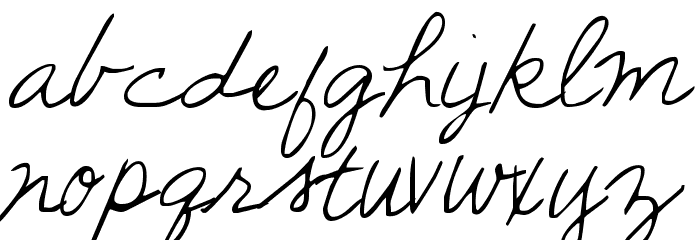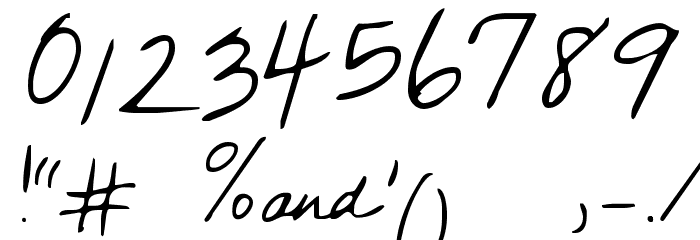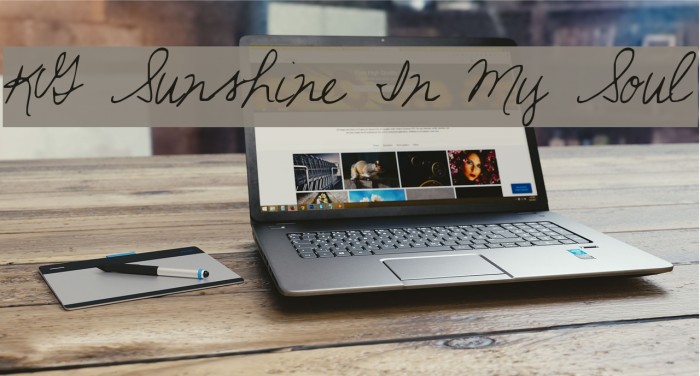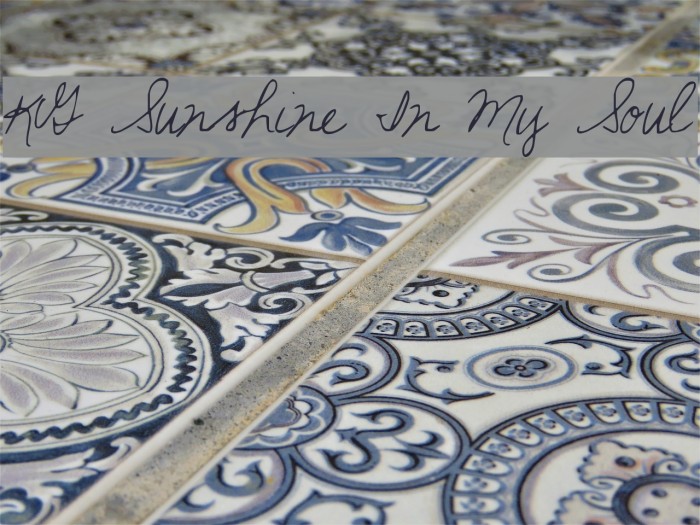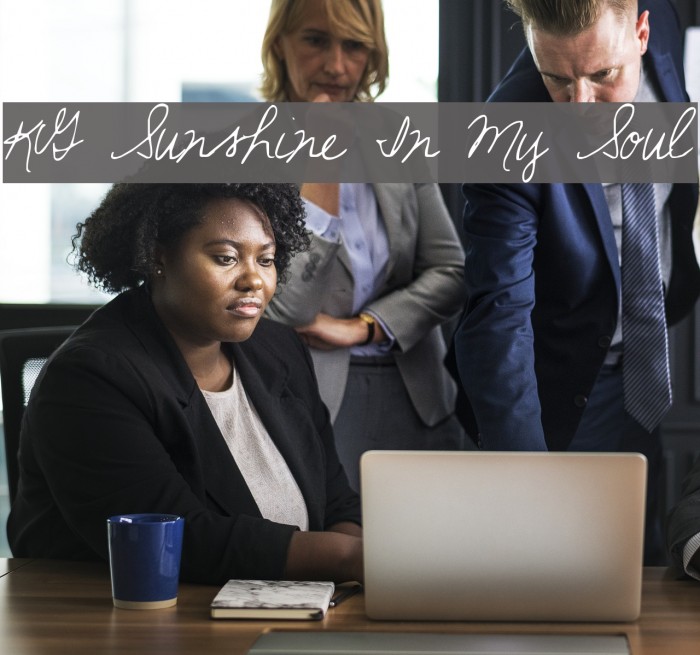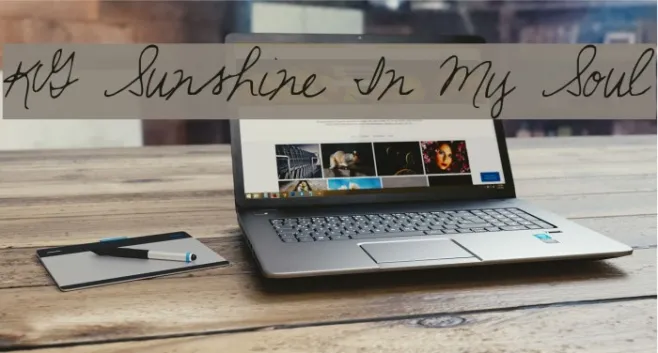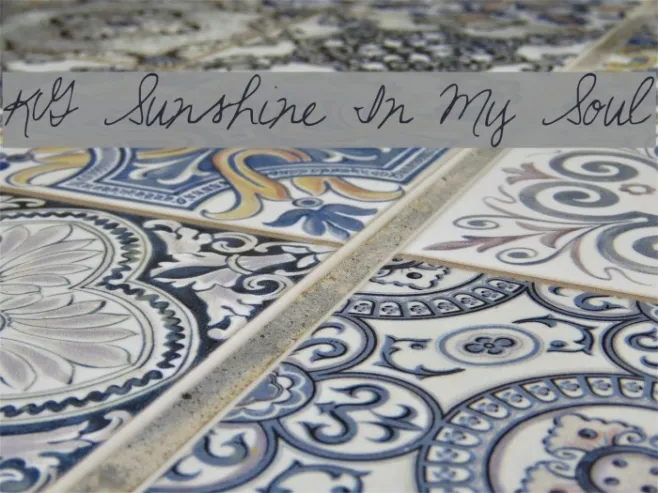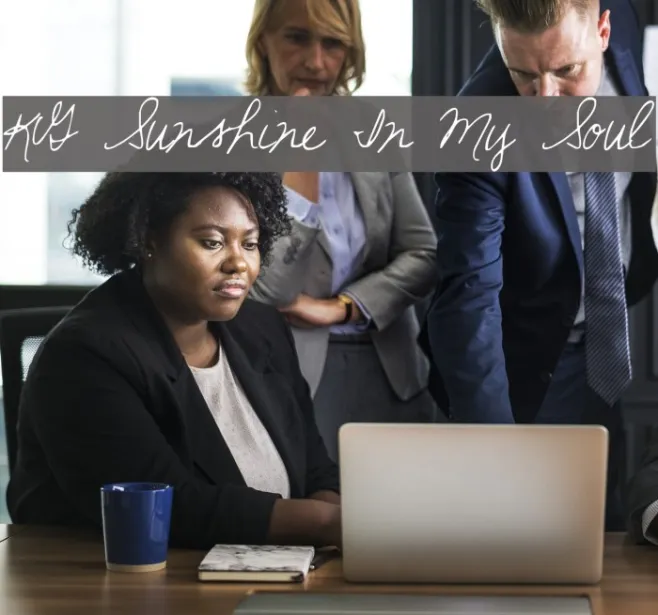
KG Sunshine In My Soul Font
This font exudes a lively and energetic handwritten style, characterized by its fluid and cursive letterforms. Each character is crafted with a natural, flowing motion, giving it a personal and informal feel. The uppercase letters are bold and slightly larger, while the lowercase letters maintain a consistent, smooth flow. Numbers and special characters are integrated seamlessly, retaining the same handwritten charm. The strokes are moderately thick, providing a balanced contrast that enhances readability without sacrificing the font's playful nature. This font is ideal for projects that require a touch of personality and warmth.
A lively, handwritten cursive font with fluid, energetic strokes.
- Proposed Projects: Great for greeting cards, personal branding, invitations, and playful marketing materials.
- Use Case: Logos, Headlines, Invitations